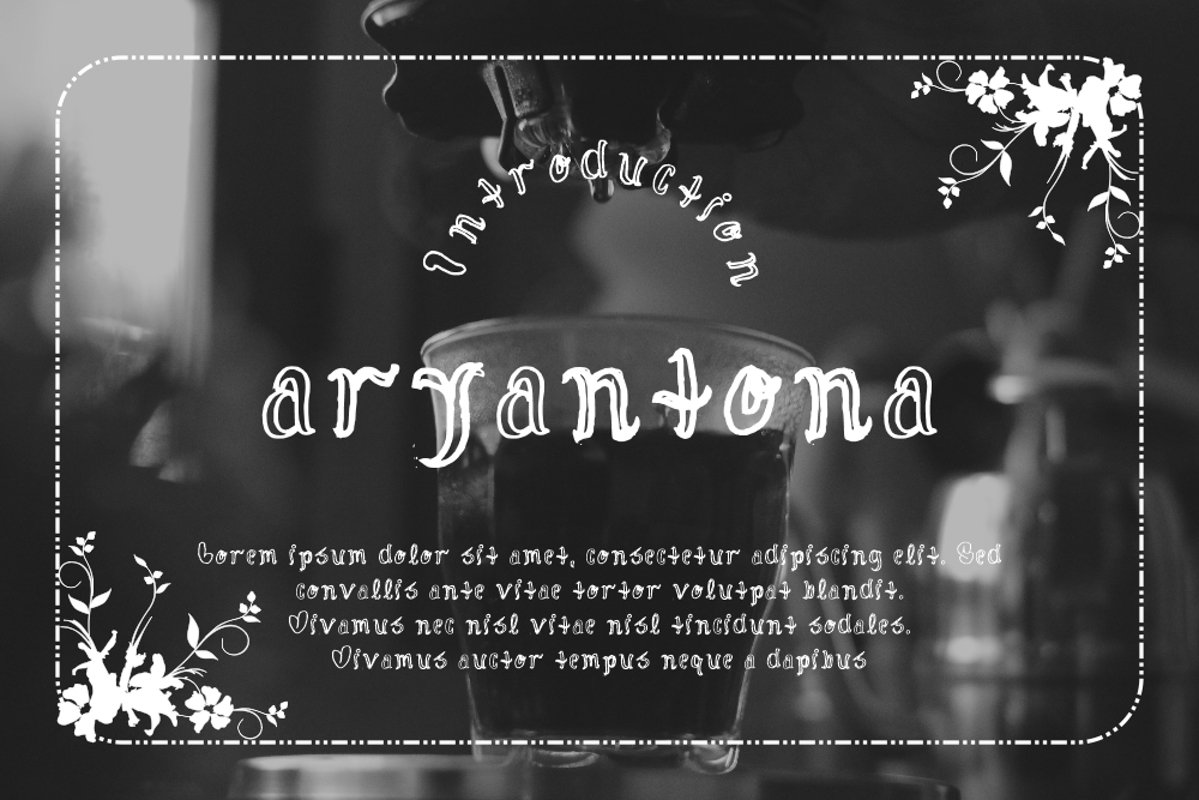
aryantona
aryantona Typeface is a vintage display type. It suitable for any vintage type needs and more Happy creating.Very suitable for you who do exploration
aryantona